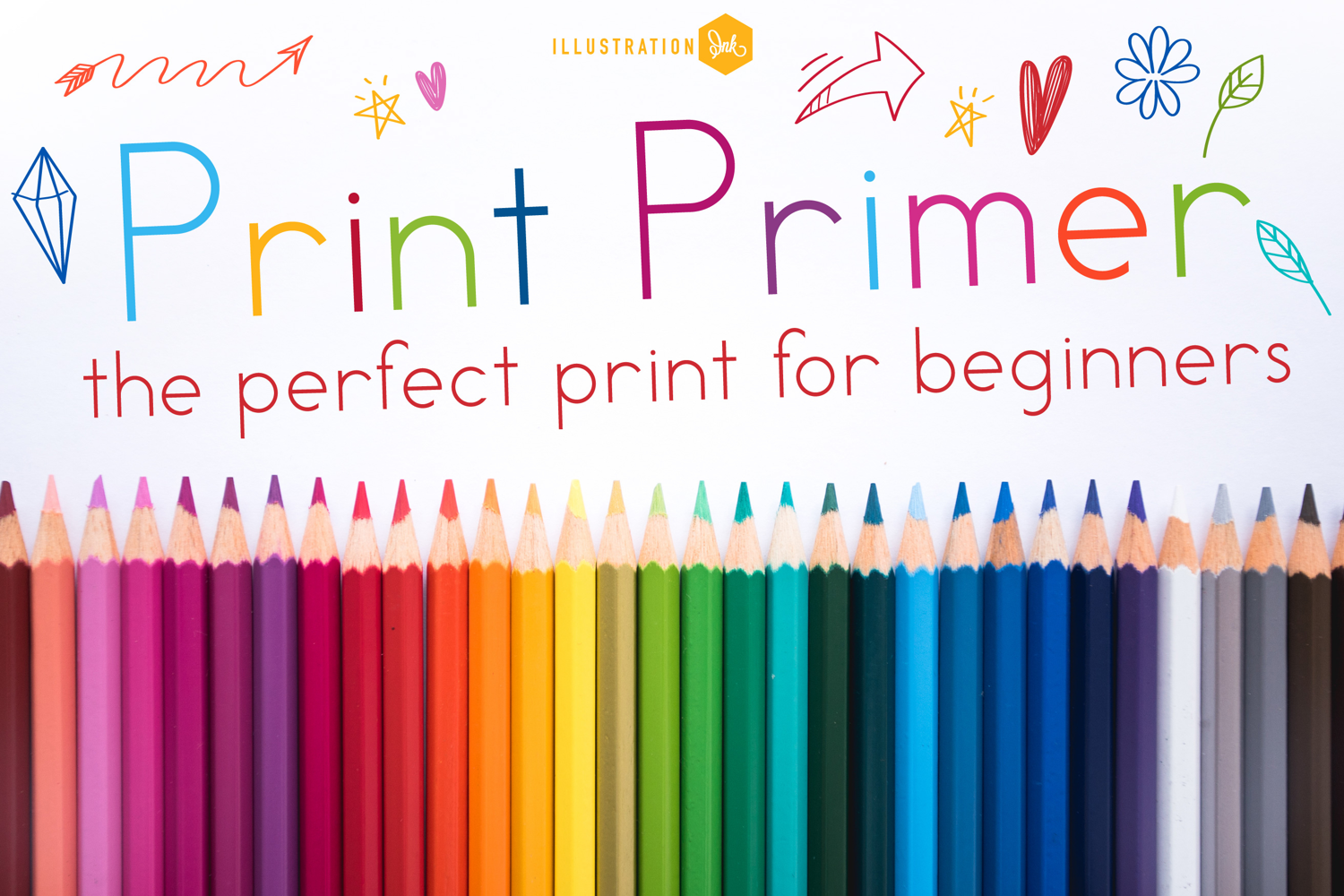
Print Primer Font Family
This hand-crafted font is a hand-written print with perfectly form ball and stick lettering that is taught in grade school. There is a full international character set included as well as many weights.